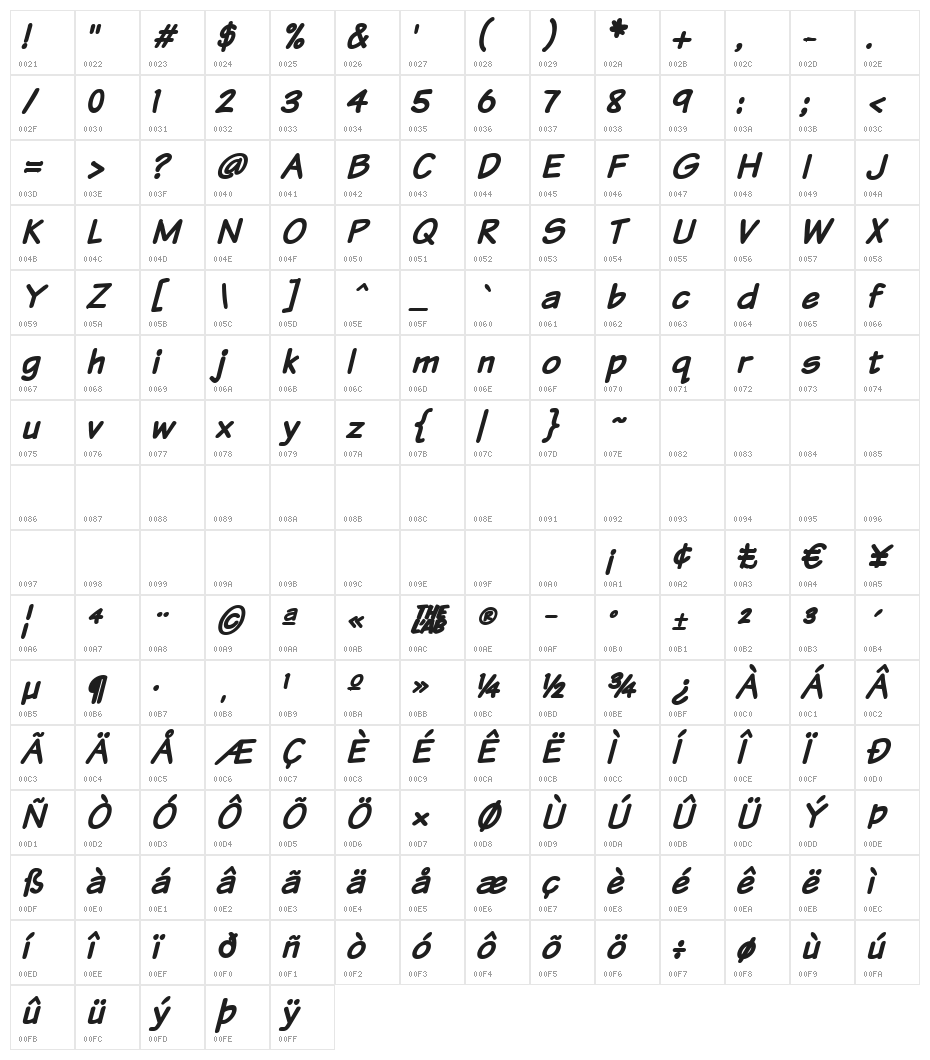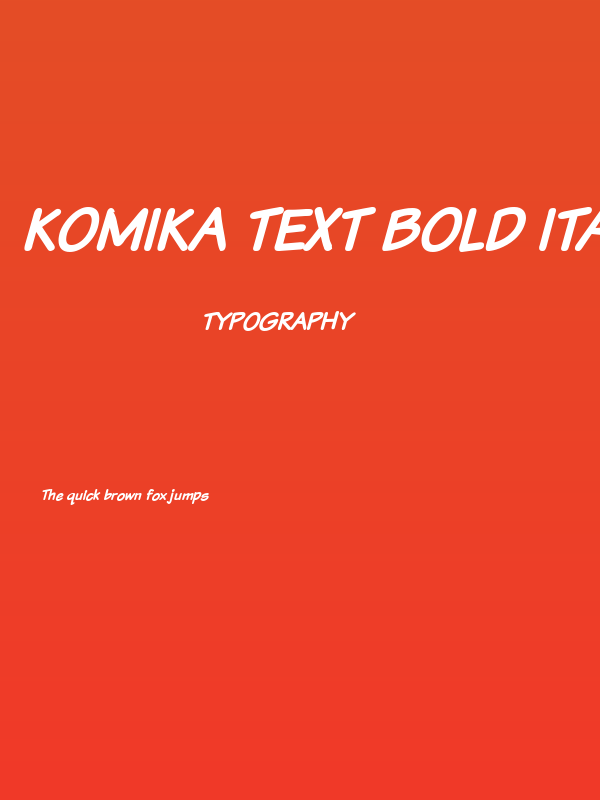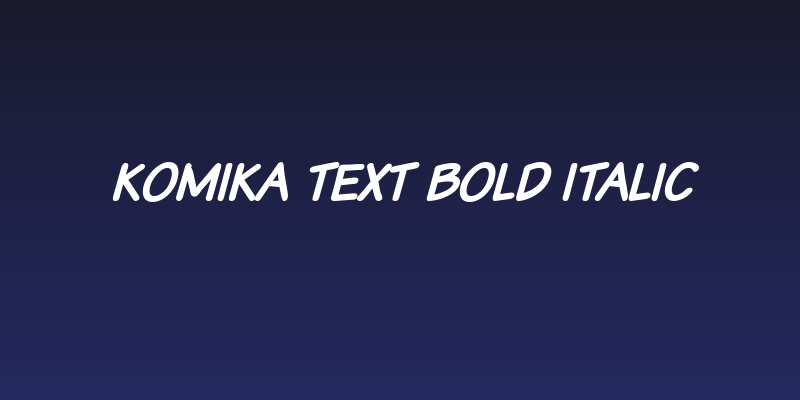
Komika Text Bold Italic Font
Komika Text Bold Italic Description
This font features a playful and bold style with a distinct italic slant, giving it a dynamic and energetic appearance. The characters are rounded and slightly condensed, contributing to a friendly and approachable look. The bold weight enhances its visibility and impact, making it suitable for attention-grabbing designs. The font maintains consistent stroke thickness, resulting in medium contrast. Its informal and casual vibe makes it ideal for projects that require a fun and lively touch.
| Proposed Projects | Ideal for comic books, children's books, playful branding, and casual event posters. |